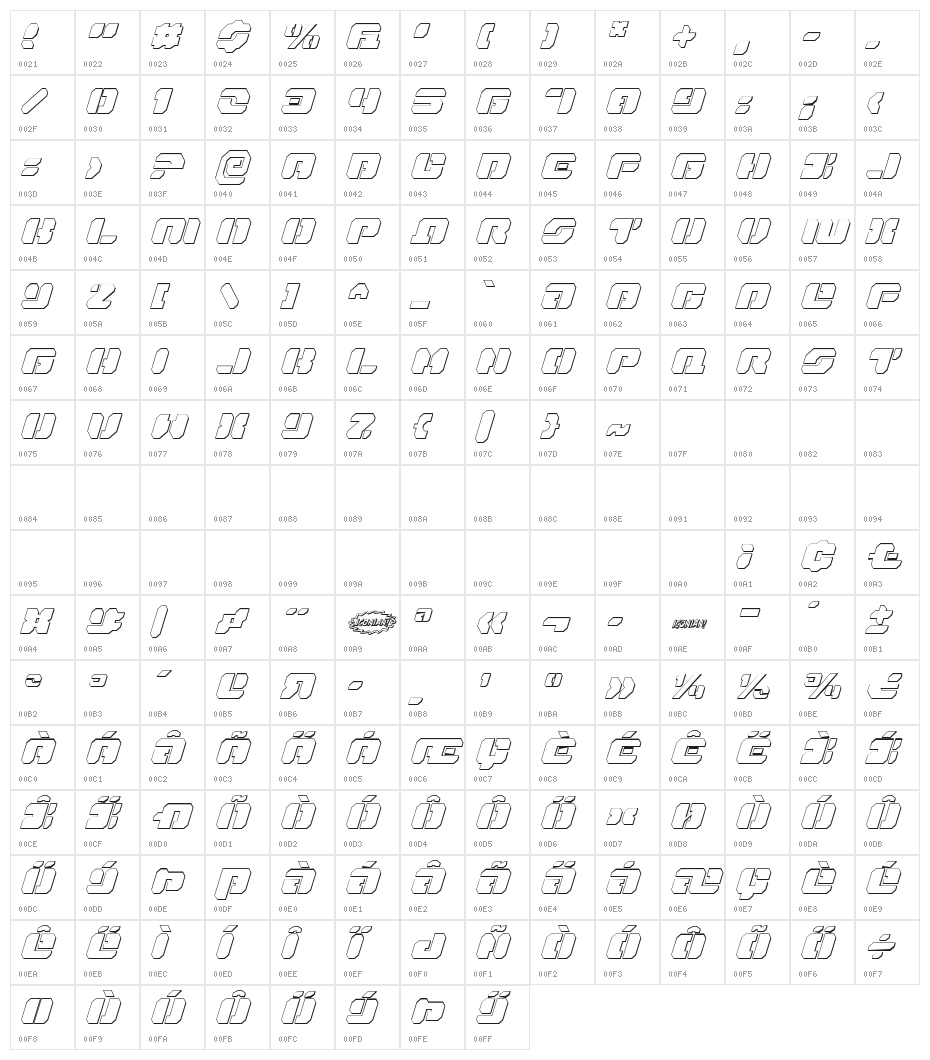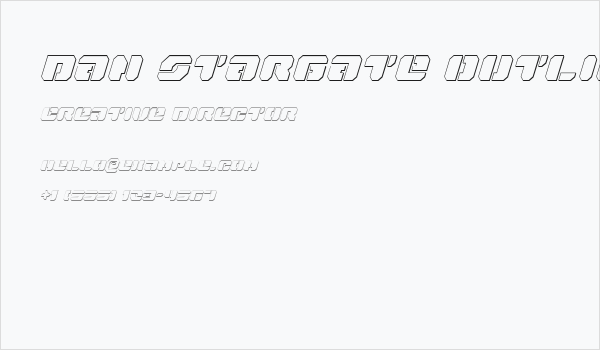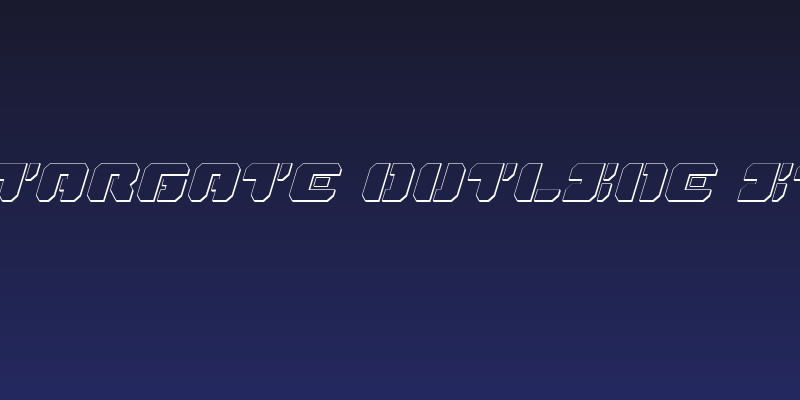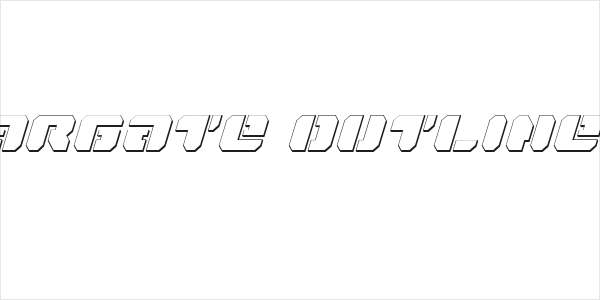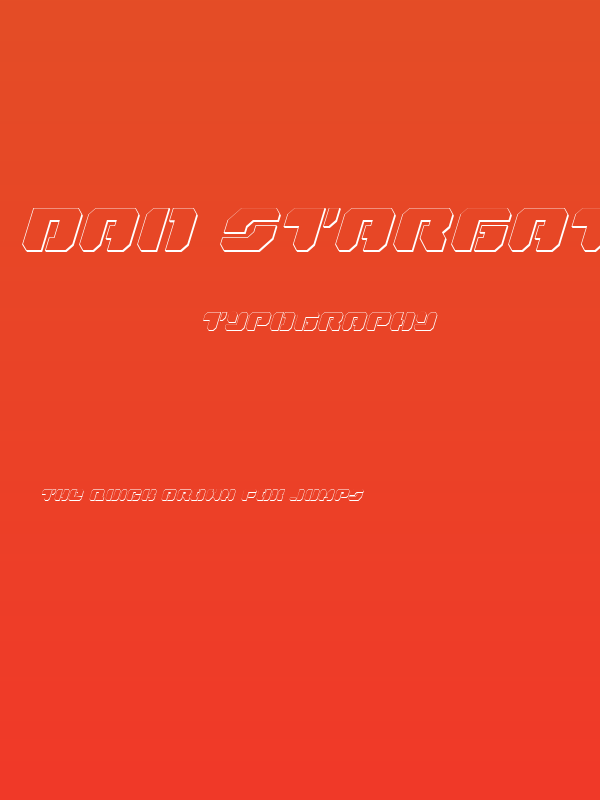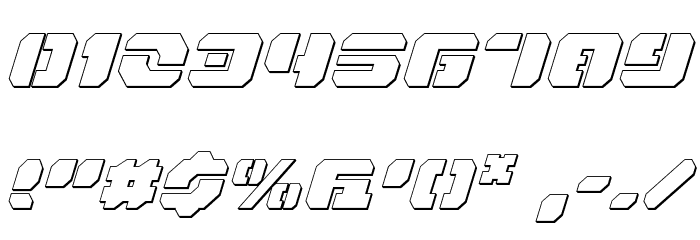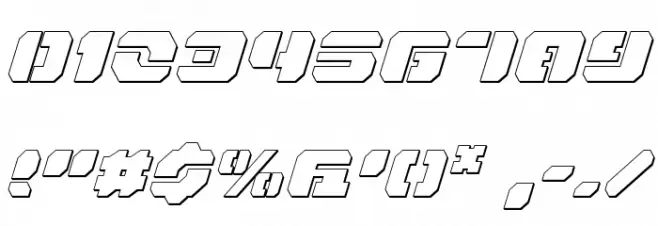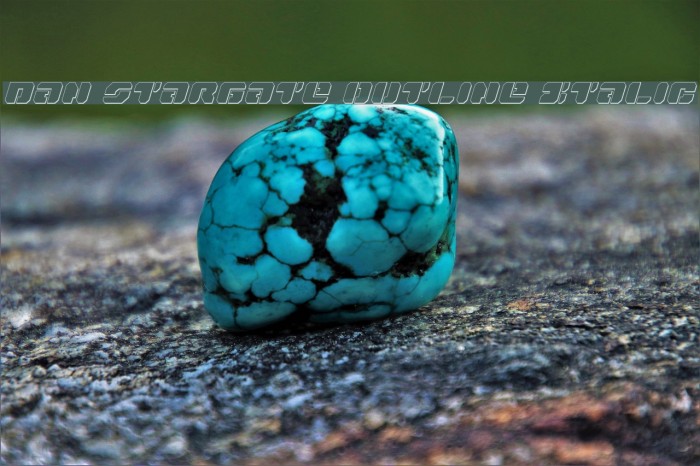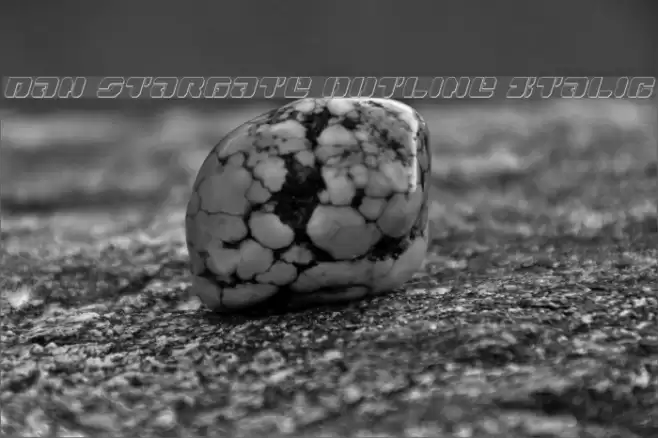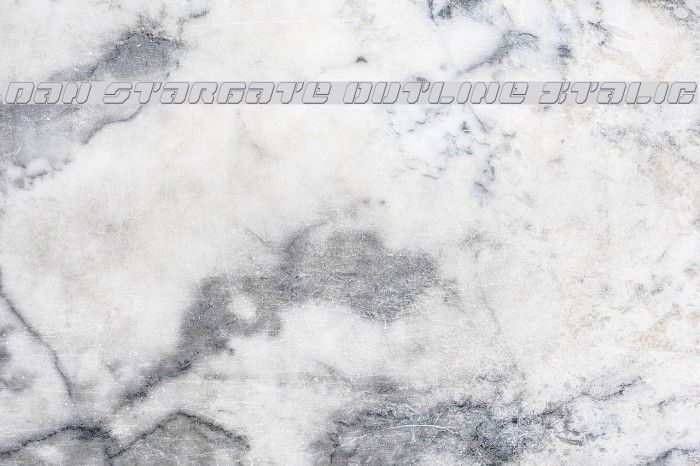
Dan Stargate Outline Italic Font
Dan Stargate Outline Italic Description
This font features a futuristic, geometric outline style with a distinct italic slant, giving it a dynamic and forward-moving appearance. The characters are constructed with bold, angular lines and sharp edges, creating a sense of movement and energy. The outline design adds a layer of complexity and depth, making it visually striking. Each letter maintains a consistent structure, ensuring readability while still offering a unique aesthetic. The font's modern and innovative style makes it suitable for projects that require a cutting-edge look.
| Proposed Projects | Ideal for sci-fi themed designs, technology branding, video game titles, and futuristic posters. |